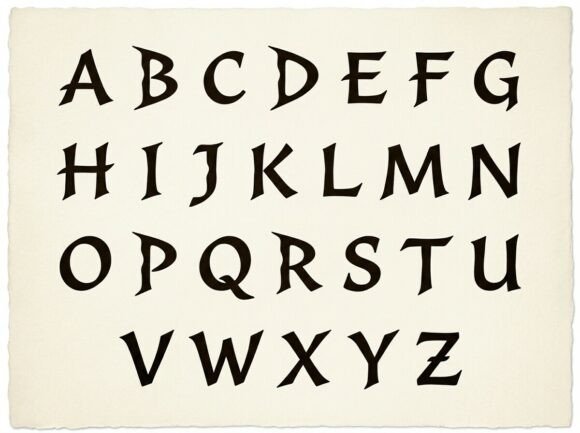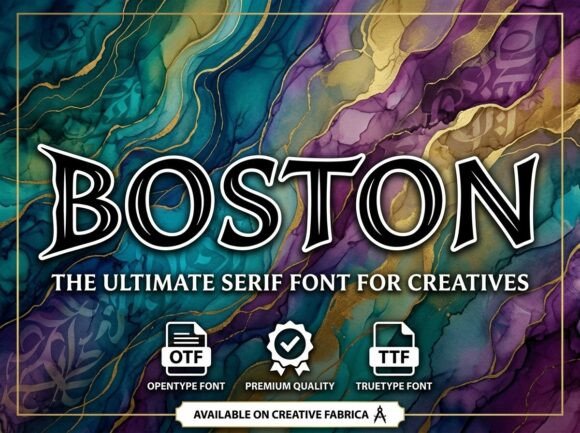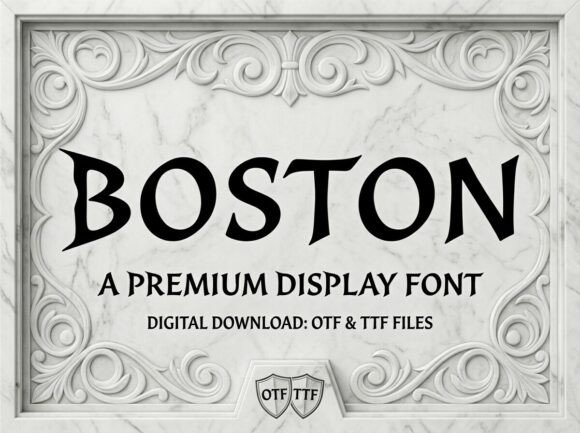
The Boston Font: A Stunning Decorative Display Font to Elevate Your Designs
Have you ever been working on a project, pouring your heart and soul into it, only to get stuck on one thing: finding the perfect font? I recall a particularly frustrating experience when I was tasked with creating a bold, eye-catching logo for a client. I scoured the internet for hours, but nothing seemed quite right. That was until I stumbled upon the Boston Font, a game-changing decorative display font that instantly elevated my design.
What I Love About Boston Font ✨
- ✅ Unique artistic elements that add a touch of sophistication to any design
- ✅ Strong visual personality that’s perfect for making a statement
- ✅ Versatile enough for bold headlines, artistic logos, and creative packaging
- ✅ Professional and polished finish that’s sure to impress
- ⚠️ This font is an ALL-CAPS (Uppercase Only) display typeface, which means it doesn’t include lowercase letters
- ⚠️ While it’s a minor limitation, it’s essential to consider this when planning your design
- Explore the OpenType features, glyphs, and stylistic alternates to get the most out of this font
Boston Font comes with a range of OpenType features, glyphs, and stylistic alternates that can elevate your design. Take some time to explore these features and experiment with different combinations to create a unique look.
The Story Behind Boston Font
Boston Font was designed with one goal in mind: to create a stunning decorative display font that would help designers and creatives make a statement. Inspired by the city’s rich history and cultural heritage, the designer aimed to craft a font that was both visually striking and versatile. While the designer’s identity remains a mystery, their passion and dedication to creating a top-notch font are evident in every detail.
Q: Is Boston Font suitable for body text?
A: While Boston Font is stunning, it’s primarily designed for display purposes. Its unique artistic elements and bold personality make it better suited for headlines, titles, and decorative text.